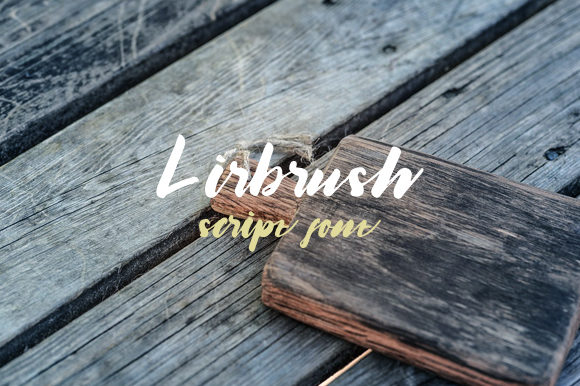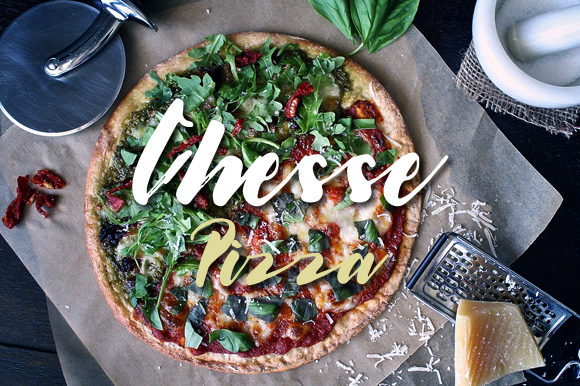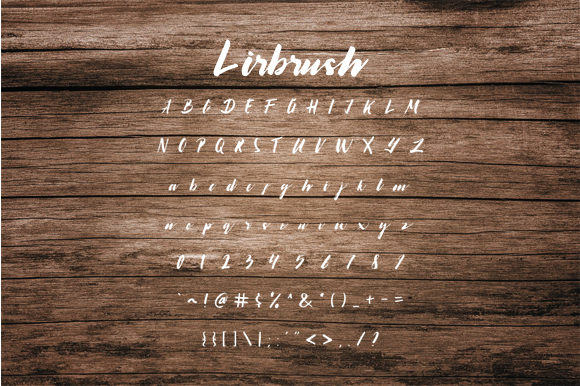
HomeScript FontsLibrush Font Script Fonts Librush Font FacebookXPinterestWhatsApp Librush Font Poster 2 Librush Font Poster 3 Librush Font Poster 4 About Librush Font Librush is a cool and fun script that’s perfect for adding a light and casual feel to any creative idea! DOWNLOAD ON CREATIVE FABRICAThis font is sold and delivered by Creative Fabrica. Font Canyon may earn a commission if you buy through this link. People also explored El Padalino Font Mystique Font Kids Park Font Toffee Gummies Font Bestfriend Font Bestnine Font Fineshly Signature Font Stefian Script Font Balgena Font 300 0 TagsLibrush Font Previous articleLambresia FontNext articleMantra Font LEAVE A REPLY Cancel reply Comment: Please enter your comment! Name:* Please enter your name here Email:* You have entered an incorrect email address! Please enter your email address here Website: Save my name, email, and website in this browser for the next time I comment. Personal Use Free Geuli Font Personal Use Free Read more about this font Good Timing – Bold Personal Use Free Read more about this font Eva Personal Use Free Read more about this font Adlanta Personal Use Free Read more about this font BLOG How to Install and Use Fonts on Windows, macOS, and Web Projects How to Install and Use Fonts on Windows, macOS, and Web Projects Fonts are a crucial part of design and branding. Whether you’re designing a... Elegant Wedding Invitation Fonts – Handwritten & Script Fonts Top 10 Handwritten Fonts That Elevate Your Designs Exploring Font Trends